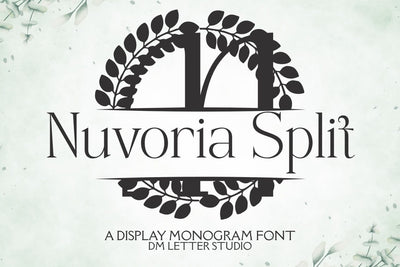
Nuvoria Split Monogram Font
Meet Nuvoria Split Monogram Font
Nuvoria Split Monogram Font turns initials into elegant, name-ready emblems in seconds. The letterforms feel sleek and balanced, while a clean horizontal split creates space for names, dates, or short words. Because spacing stays even and counters remain open, your results look polished on everything from tiny tags to large wall art. Use it for wedding gifts, family signs, door hangers, tumblers, ornaments, menus, and boutique packaging. In addition, this split monogram font pairs beautifully with a simple sans or a light script, so every layout stays readable and premium.
Where this split monogram font shines
Set one bold initial, then place the family name inside the split. Next, try couple names for keepsakes, venue names for signage, or short words like “Home,” “Welcome,” or “Love.” Since proportions favor clarity, files scale smoothly for Cricut, Silhouette, Glowforge, and laser projects. As a result, you can batch personalization for markets and storefronts without losing quality.
Design tips for Nuvoria Split Monogram
Keep the main initial large to showcase the clean geometry. Place the split at center or slightly low for balance. Choose a simple supporting font for the name inside the split to protect legibility. Because the look is airy, metallic accents and natural textures add instant value—think champagne foil on blush stock or matte black on walnut wood. However, keep names concise so everything stays clear at small sizes.
Uppercase alphabet optimized for split monograms
Matching lowercase, numbers, punctuation
Curves tuned for engraving, foil, laser cutting, and clean vinyl paths
Why makers choose this split monogram font
You want fast personalization that still feels custom. Nuvoria Split Monogram Font delivers consistent, high-end name designs in minutes while keeping your shop’s style cohesive across many product types.